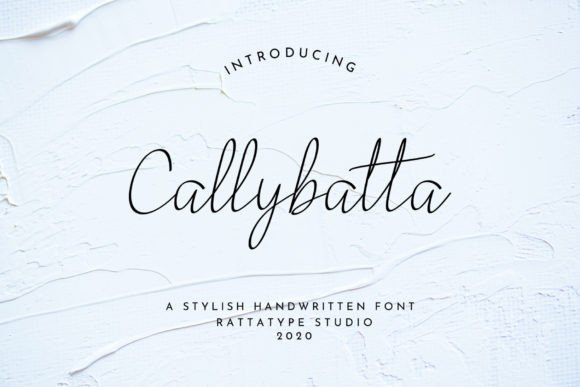
Unleashing the Elegance: Discover the Callybatta Font
Have you ever stumbled upon a beautiful handwritten note in a coffee shop, or a stunning wedding invitation that left you breathless? Those moments of creative discovery spark something within us, don’t they? For designers, the thrill of finding the perfect font can be just as exhilarating. And today, we’re excited to introduce you to a font that embodies luxury, elegance, and sophistication: the Callybatta Font.
This beautiful, handwritten style font is perfect for making a statement in various design projects, from photography and weddings to fashion and food labels. With its fashionable and elegant vibe, the Callybatta Font is a valuable asset for any designer looking to add a touch of refinement to their work.
Callybatta Font Key Features
- Font Family: Callybatta is a unique and elegant script font designed to add a touch of sophistication to any design.
- Unique Characteristics: Callybatta features a distinctive calligraphic style with fluid connections between letters, giving it a beautiful and elegant appearance.
Callybatta Font Review
I recently had the chance to work with the Callybatta Font, and I must say it’s a unique and intriguing addition to any design project. Here are my honest thoughts:
- Unconventional style: Callybatta Font brings a breath of fresh air with its unusual letterforms and quirky charm.
- Legibility: Despite its unconventional style, the font is surprisingly readable, especially in digital formats.
- Playfulness: The font’s playful nature makes it perfect for projects that require a sense of whimsy and creativity.
- Customizability: The font’s unique style can be a double-edged sword – it may not be suitable for projects that require a more traditional or conservative approach.
- Font pairing: Callybatta Font may not pair well with more serious or formal fonts, which can limit its versatility.
- Legibility in print: While the font is readable in digital formats, it may not be as clear in print, especially at smaller font sizes.
Overall, the Callybatta Font is a great choice for designers looking to add some personality and whimsy to their projects. However, it may not be the best fit for every project, and designers should be aware of its limitations before using it.
For the most effective use of Callybatta Font, consider the following tips:
- Use Callybatta Font for headings and titles to add a touch of elegance and sophistication.
- Pair Callybatta Font with other fonts for a unique and creative design.
- Experiment with different font sizes and colors to create a visually appealing design.
Alternatives to Callybatta Font
Pacifico is a beautiful, elegant script font perfect for creating a sense of luxury and sophistication. It is ideal for use in branding, packaging, and editorial design. When to use: High-end fashion, jewelry, and lifestyle brands. It compares to Callybatta Font by being more elegant and refined, but lacking the distressed feel.
Great Vibes is a fun, energetic script font great for creating a lively and playful atmosphere. It is ideal for use in advertising, social media, and entertainment design. When to use: Youthful brands, festivals, and events. It compares to Callybatta Font by being more casual and relaxed, but lacking the sophistication.
Carolyna Pro is a modern, elegant script font perfect for creating a sense of professionalism and sophistication. It is ideal for use in corporate branding, business cards, and presentations. When to use: Corporate, financial, and educational institutions. It compares to Callybatta Font by being more modern and refined, but lacking the distressed feel.